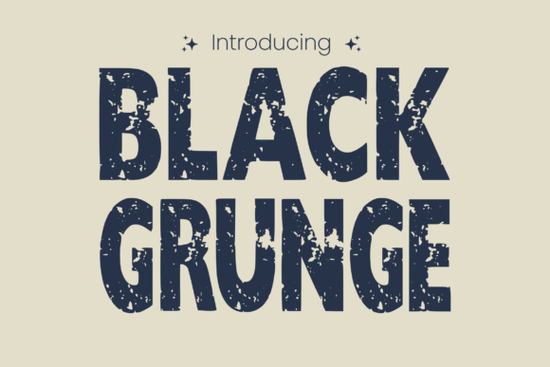
Black Grunge Font is a versatile typeface that brings a bold, edgy aesthetic to any design project. Whether you're working on a comic book cover, a birthday banner, or a custom t-shirt, this font adds a strong visual presence that commands attention. Its grunge style blends raw energy with modern typography, making it a go-to choice for designers and creators looking for something unique.
If you're exploring display fonts, Black Grunge stands out for its distinctive character. It’s designed to work well in a variety of applications, from digital to print. The font’s structure gives it a rugged feel while maintaining readability, which is essential for any creative project that needs to communicate clearly and effectively.
What Makes Black Grunge Unique?
One of the key features of Black Grunge is its ability to add personality to any design. Unlike more traditional fonts, it has a handcrafted look that feels authentic and expressive. This makes it ideal for projects that require a bit of edge or a retro vibe. The font’s weight and texture help it stand out without overwhelming the overall composition.
Designers often use Black Grunge for branding, especially when the goal is to create a strong, memorable identity. It works well with other fonts too, allowing for creative pairings that enhance the visual hierarchy of a layout. Whether you’re designing for a small business or a personal project, this font offers flexibility and style.
Best Uses for Black Grunge
This font shines in designs that need a bold statement. For example, it’s perfect for creating eye-catching headlines on social media posts or promotional materials. It also pairs well with images and graphics, making it a great choice for t-shirt prints, mug designs, and other sublimation projects.
How to Use Black Grunge Effectively
To get the most out of Black Grunge, consider the context of your design. It works best when used in smaller quantities, such as headlines or logos, rather than large blocks of text. This keeps the design from feeling cluttered and maintains its impact.
Experimenting with different colors and backgrounds can also enhance the font’s appearance. Darker tones often bring out the grunge style, while lighter backgrounds can create a contrast that makes the text pop. Try different combinations to see what works best for your specific project.
Final Thoughts
Black Grunge Font is a powerful tool for anyone looking to add a striking visual element to their work. Its combination of strength and style makes it suitable for a wide range of creative projects. Whether you're a designer, a crafter, or a small business owner, this font can help you express your vision with confidence.
Before finalizing your design, make sure to test the font in different sizes and contexts. This will help you understand how it performs and how it interacts with other elements in your layout. With a little experimentation, you’ll find the perfect way to use Black Grunge in your next project.